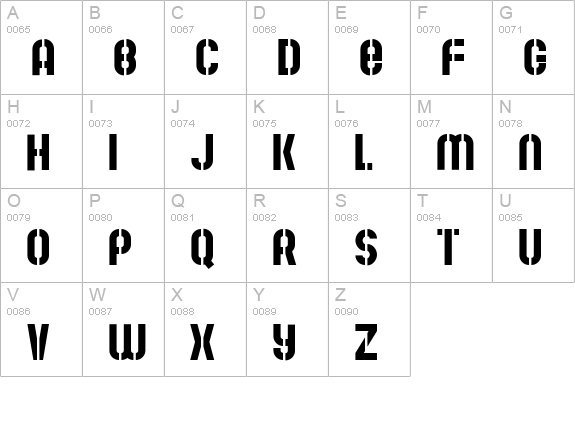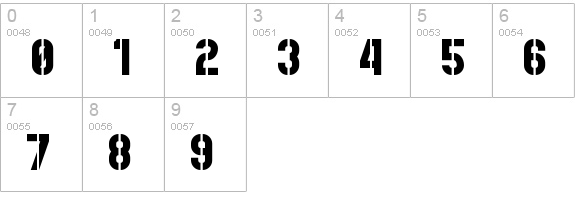
Mute Fruit Regular Font Details
Mute Fruit Regular is the standard, neutral variant in the Mute typeface family \xE2\x80\x94 well suited to general body text, paragraphs, and standard typographic work.
Mute Fruit Regular font is a versatile and modern typeface that exudes elegance and sophistication. Its clean lines and sleek design make it perfect for a wide range of design projects, from branding to editorial layouts. The font's timeless appeal is enhanced by its balanced proportions and smooth curves, creating a harmonious visual impact. What sets Mute Fruit Regular font apart is not only its aesthetic appeal, but also its accessibility. This high-quality font is available for free download at FontsMarket.com, making it an excellent choice for designers looking for a budget-friendly option without compromising on quality. Whether you're working on a personal project or a commercial venture, Mute Fruit Regular font offers a professional and polished look that will elevate your designs to the next level.